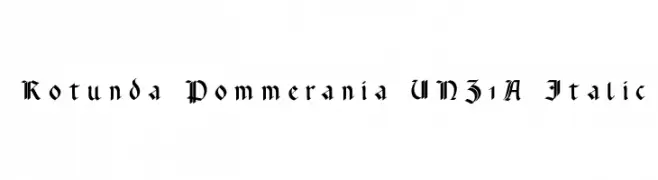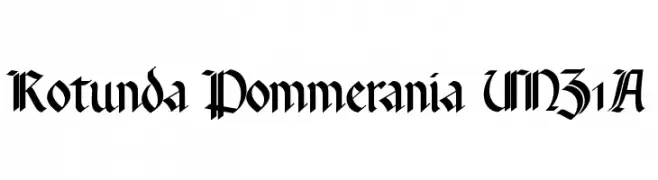
( Fonts by Peter Wiegel - www.peter-wiegel.de )
A bold, ornate blackletter font with sharp, angular letterforms.
( Fonts by Peter Wiegel - www.peter-wiegel.de )
A Gothic-inspired font with intricate, angular strokes and a medieval essence.
A bold, ornate blackletter font with medieval flair and intricate design.